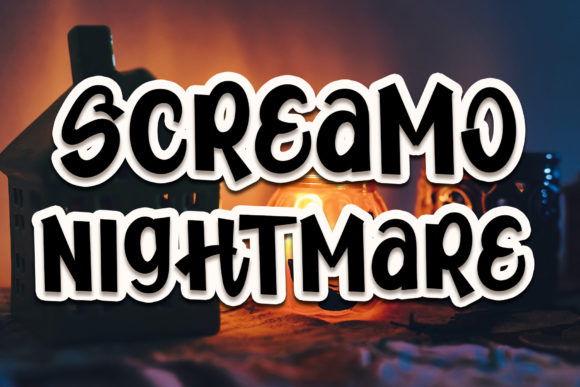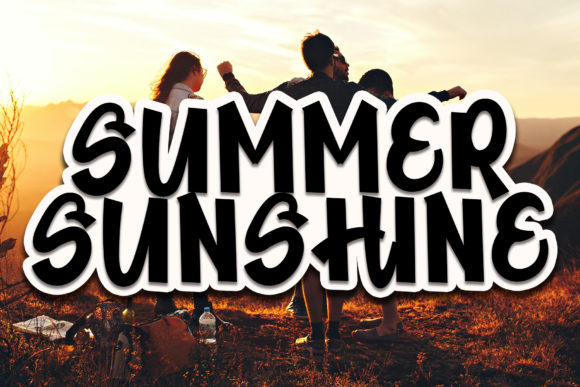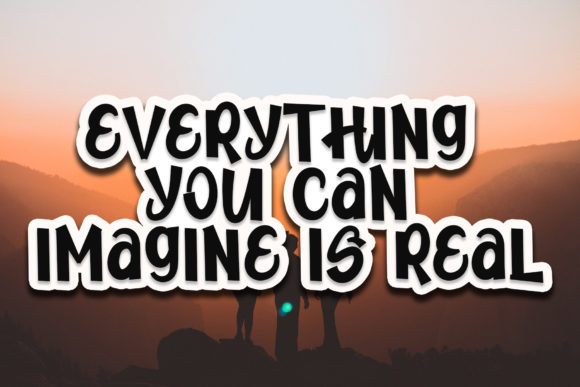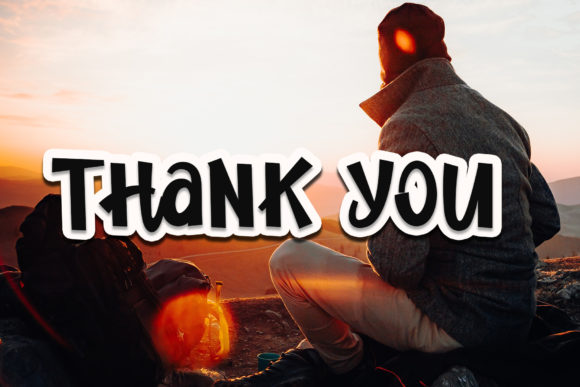
Happy Helloween Font: The Spookiest Addition to Your Halloween Crafts
Halloween is just around the corner, and it’s time to get creative with your crafts, posters, and designs. If you’re looking for a font that will add a spooky touch to your projects, look no further than the Happy Helloween Font. This bold and decorative font is perfect for Halloween enthusiasts, designers, and crafters who want to create spectacular and eye-catching designs.
What is Happy Helloween Font?
Happy Helloween Font is a unique and creative typeface designed specifically for Halloween-themed projects. Its bold and spooky design makes it perfect for horror movie posters, Halloween crafts, t-shirts, and any other project that requires a spectacular look. The font is easy to use and can be installed on your computer or used online, making it accessible to designers and crafters of all levels.
Features of Happy Helloween Font
- Bold and Spooky Design: Happy Helloween Font features a bold and spooky design that will add a touch of Halloween spirit to your projects.
- High-Quality Design: The font is designed with high-quality graphics, ensuring that it looks great in any project.
- Versatile: Happy Helloween Font can be used for a variety of projects, including Halloween crafts, horror movie posters, t-shirts, and more.
Uses of Happy Helloween Font
Happy Helloween Font is a versatile font that can be used for a variety of projects, including:
- Halloween Crafts: Add a spooky touch to your Halloween crafts, such as party invitations, decorations, and gift tags.
- Horror Movie Posters: Create eye-catching posters for horror movies or Halloween-themed events.
- T-Shirts and Merchandise: Design spooky t-shirts, hoodies, and other merchandise for Halloween enthusiasts.
- Social Media Graphics: Create spooky social media graphics, such as Facebook posts, Instagram stories, and Twitter headers.
Tips for Using Happy Helloween Font
Here are some tips for using Happy Helloween Font:
- Pair with Other Fonts: Pair Happy Helloween Font with other fonts to create a unique and eye-catching design.
- Experiment with Colors: Experiment with different colors to create a spooky and festive atmosphere.
- Add Graphics and Images: Add graphics and images to your design to make it more visually appealing.
- Keep it Simple: Keep your design simple and easy to read, especially when using a bold font like Happy Helloween.
Happy Helloween Font is a bold and spooky decorative font that is perfect for Halloween enthusiasts, designers, and crafters. Its unique design and versatility make it a great addition to any Halloween project. With its ease of use and high-quality design, Happy Helloween Font is sure to become a favorite among designers and crafters. So, add it to your Halloween crafts, horror movie posters, t-shirts, and anything else that requires a spectacular look.